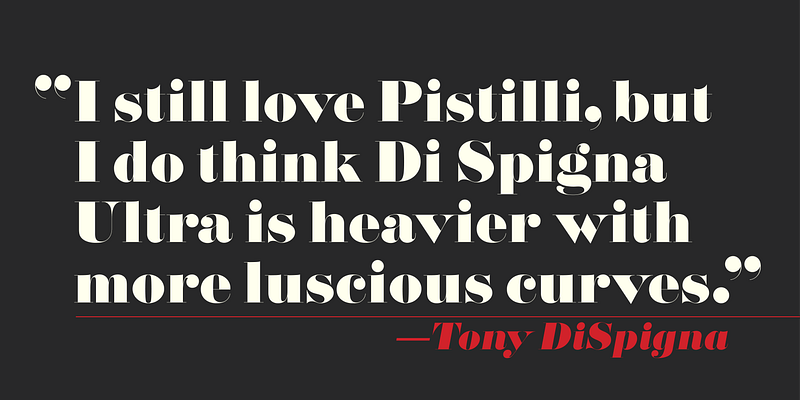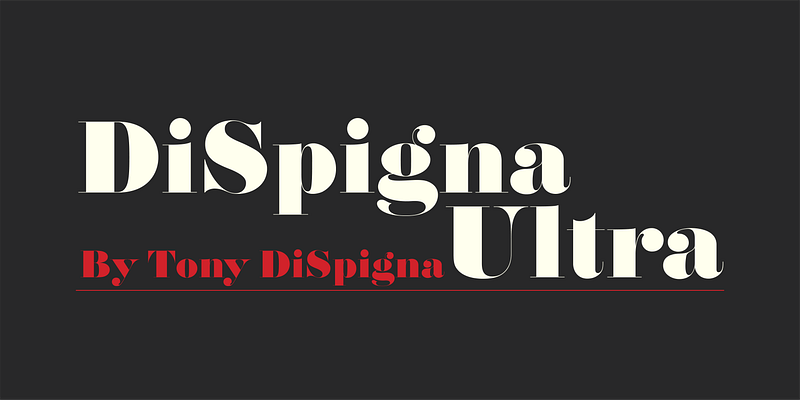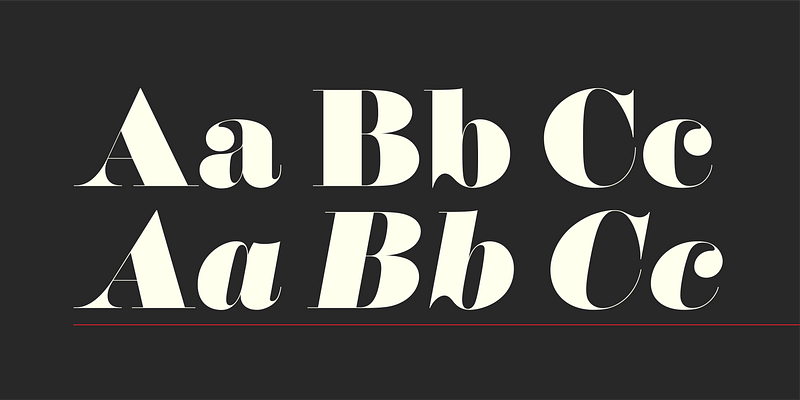
When I got out of school at Pratt in 1967, I fell in love with Herb Lubalin’s posters of his new typefaces, especially Pistilli Roman. (See page 34 of the Herb Lubalin book by Alan Peckolick.) I vowed that someday I would do one even better and heavier in weight. So, in 1969, I designed DiSpigna Roman in pencil on tracing paper, and executed it on heavy stock bond paper with the traditional ink and white clean up paint-the way we did all executions of letterform and typefaces back then. It became one of the first faces we digitized when we created Thinstroke. This typeface harkens directly back to 1969. I still love Pistilli, but I do think my DiSpigna Ultra is heavier with more luscious curves.